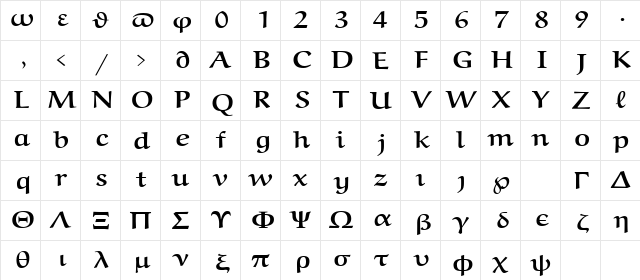
eurb6 Regular
Design Context for eurb6 Typeface
eurb6 offers clean, dependable letterforms without strong stylistic allegiance, making it a practical choice for designers who need flexibility.